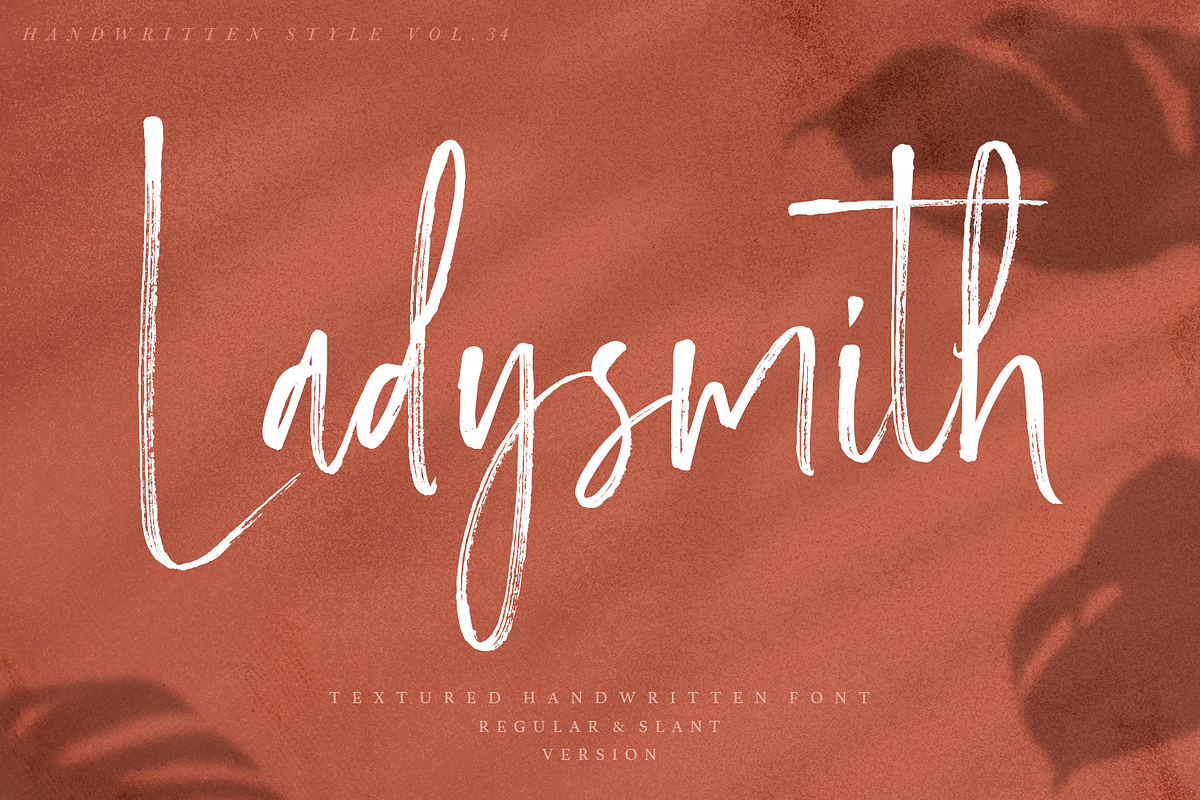
Ladysmith - Handwritten Font Free Download
Ladysmith - Handwritten Font Free Download is a stylish and elegant handwritten script font designed with smooth, flowing strokes. Its natural and organic look makes it perfect for projects that need a personal, creative touch. Whether you are designing logos, invitations, greeting cards, or social media graphics, Ladysmith adds a sophisticated and artistic flair to your typography.
Using the Ladysmith - Handwritten Font Free Download brings a refined, handwritten style to your work. Whether you're creating custom designs for weddings, branding a handmade product, or crafting a personal note, this font will help you achieve a chic and authentic feel.